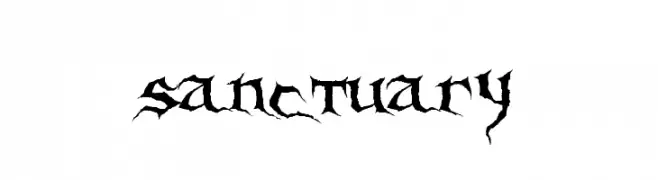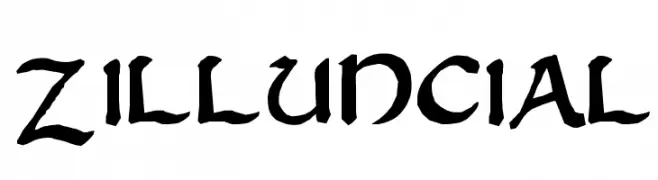
A bold, blackletter font with a Gothic, medieval style.
A bold, intricate Blackletter font with a medieval manuscript style.
A rugged, stone-like font with a fantasy and medieval aesthetic.
A dramatic, gothic-style font with sharp, angular lines and intricate design.